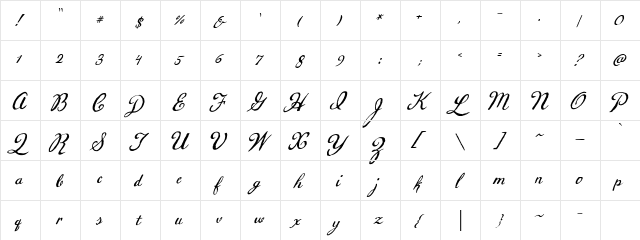
CK Wellington Regular Font Preview
CK Wellington Regular
Design Context for CK Wellington Typeface
CK Wellington is a composed and adaptable typeface that performs quietly and consistently across a wide range of design contexts.